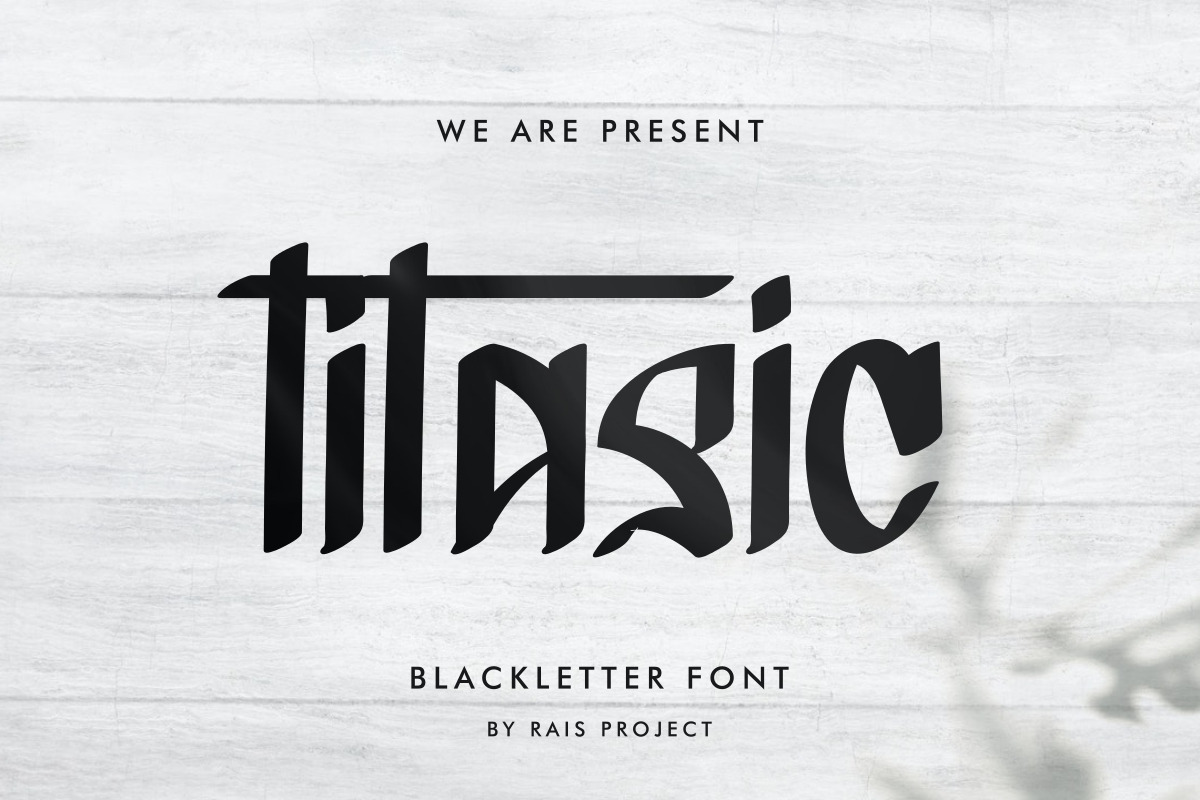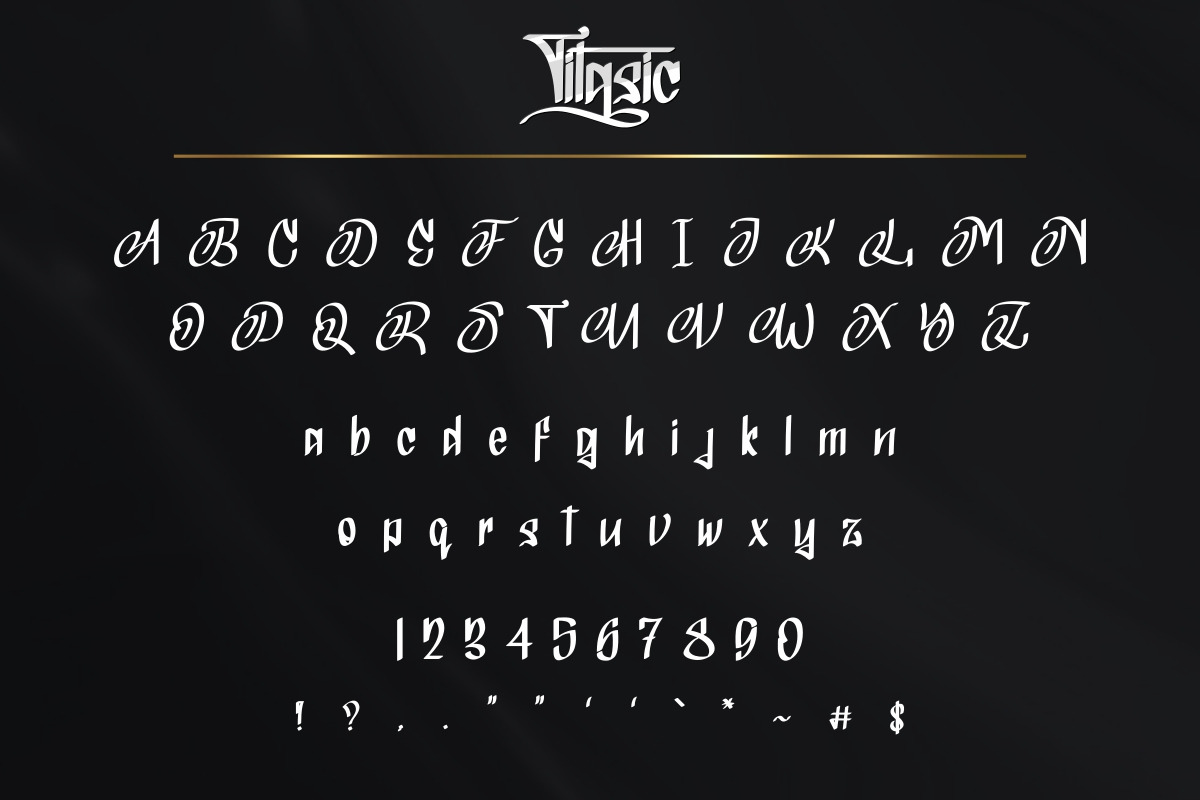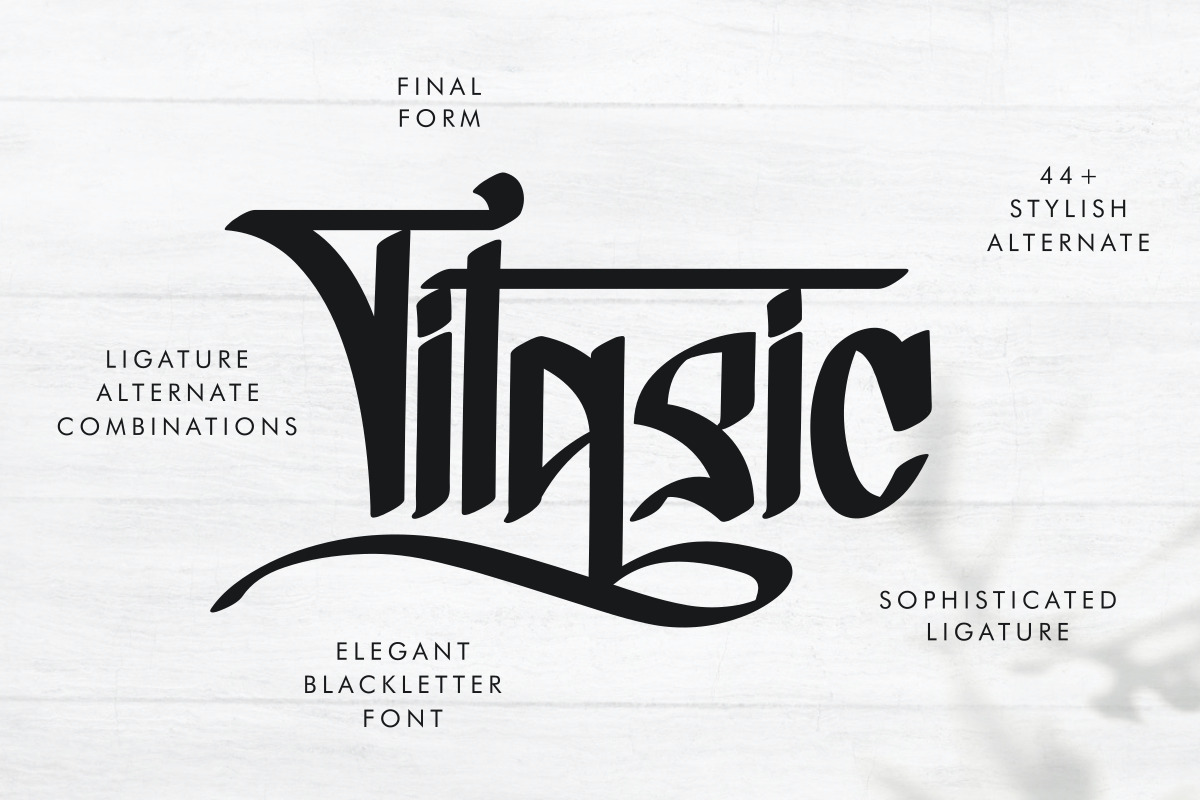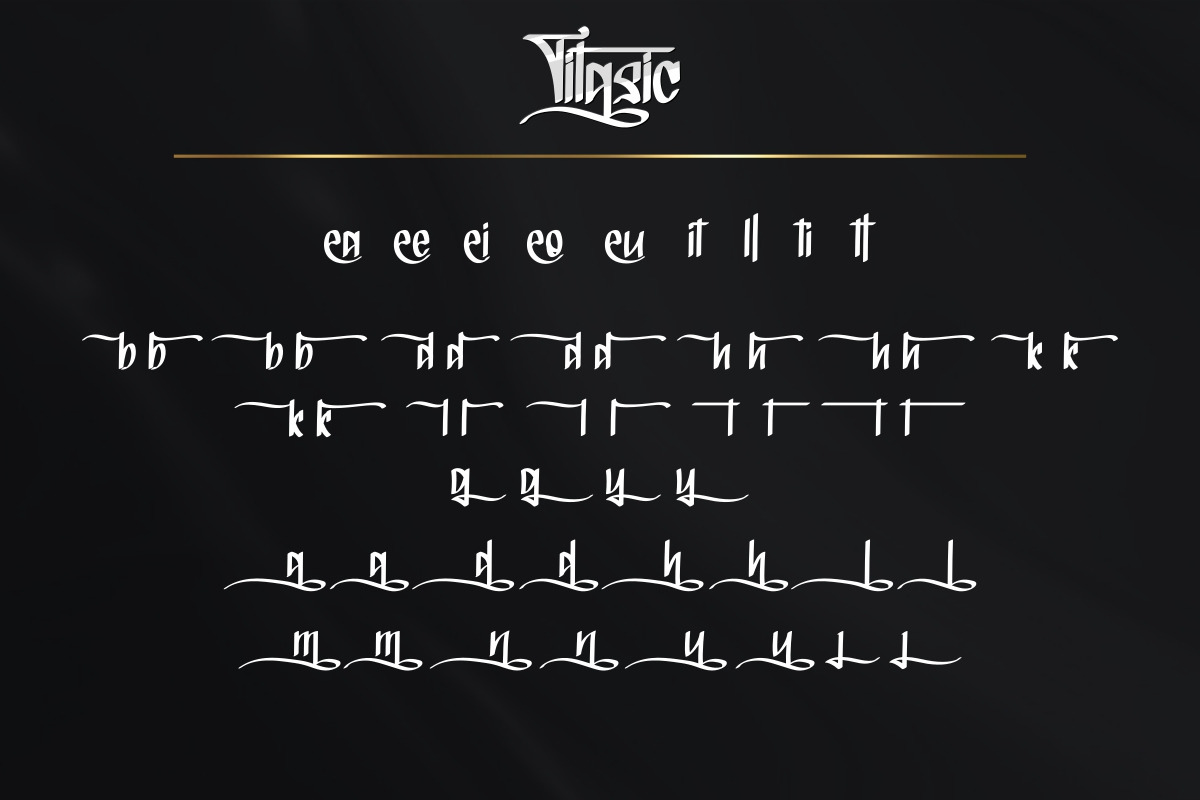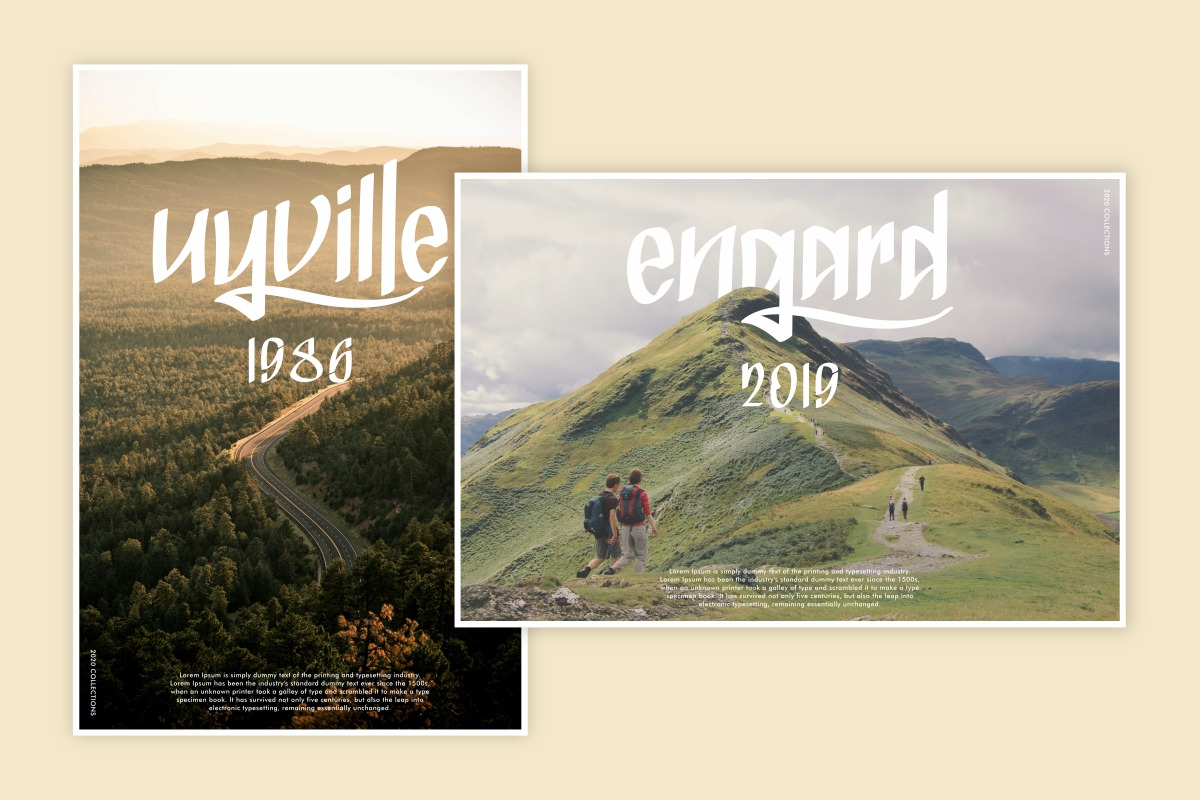
Titasic Font
It is a Blackletter block display font with unique style. The font was handcrafted for any your special projects including : headlines, promotion, events, branding, advertising, magazine, signage, invitation, stationery, social media posts, label, or and any projects that need unique strong style. The theme/industries of this font is Horror, Movie, Game, Magazine, Music, Video etc
All lowercase letters include beginning and ending swashes, giving a strong unique style. You will get: